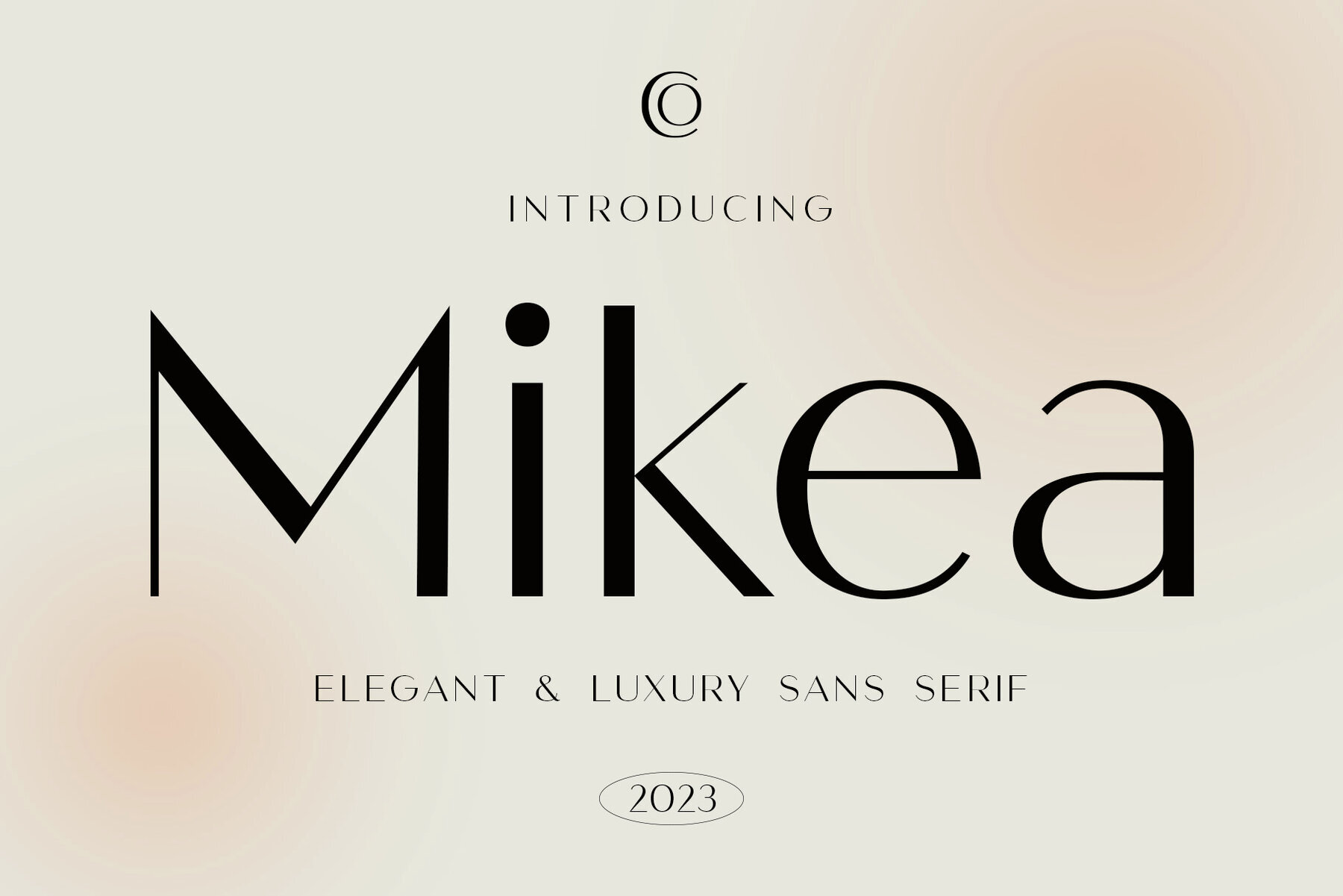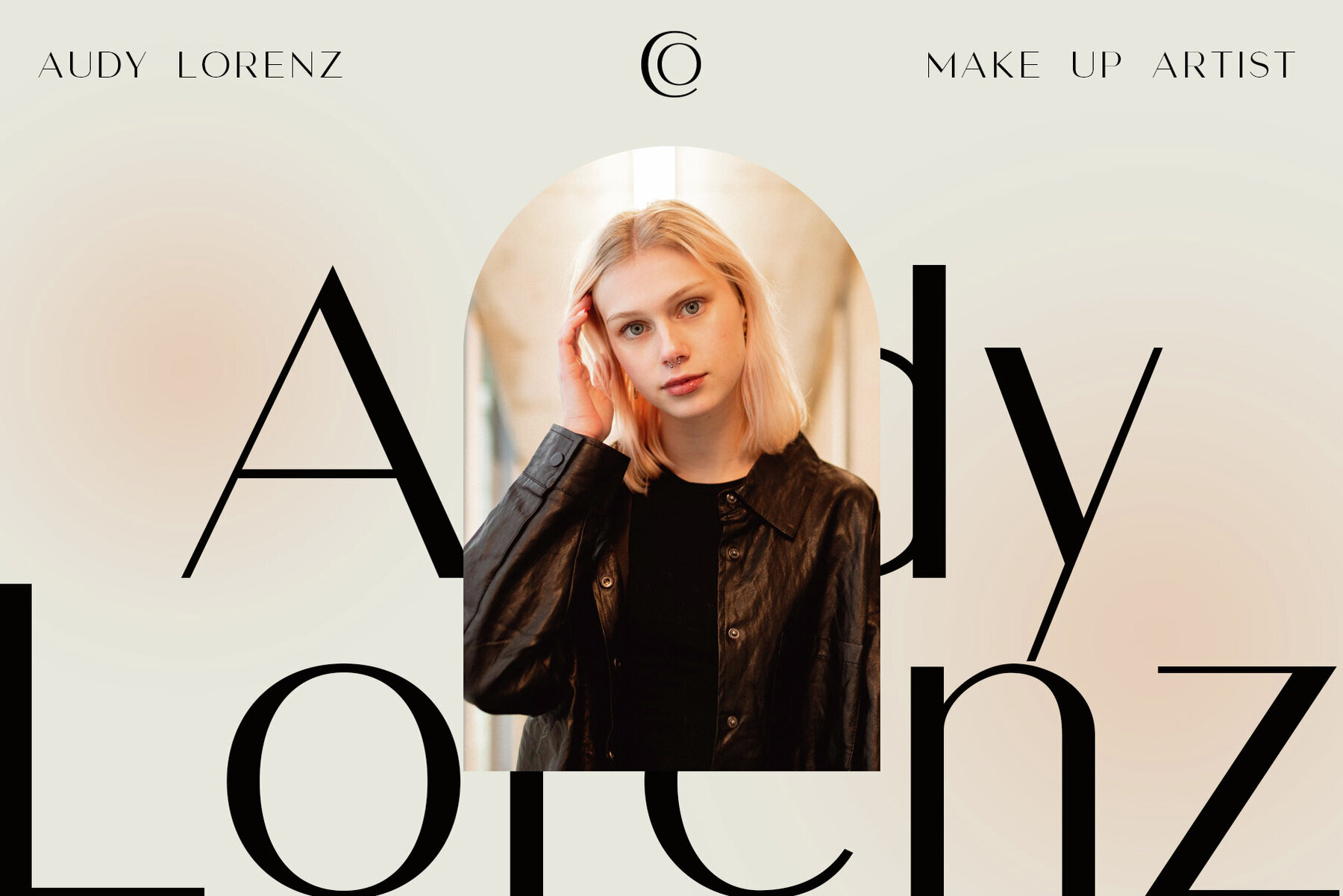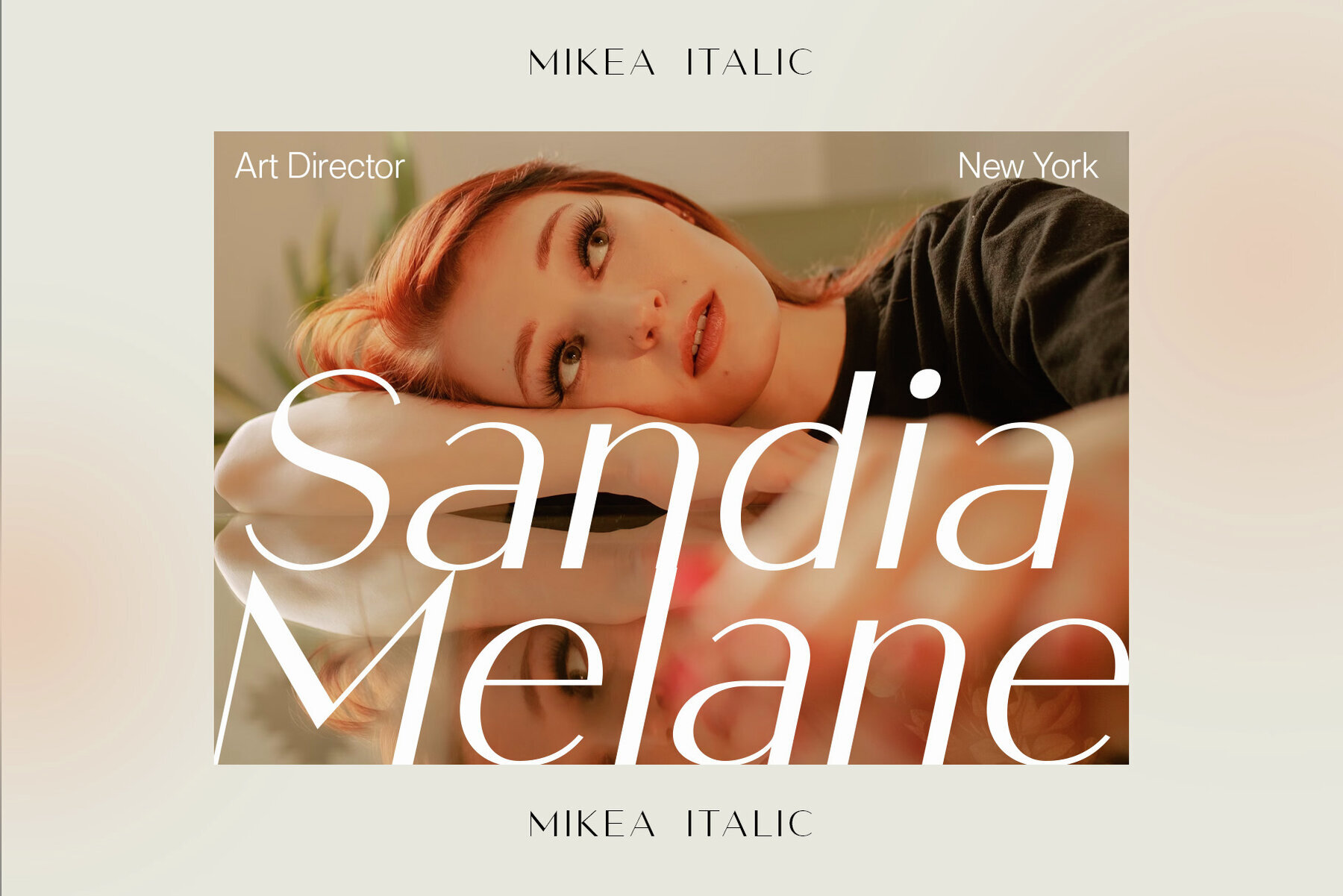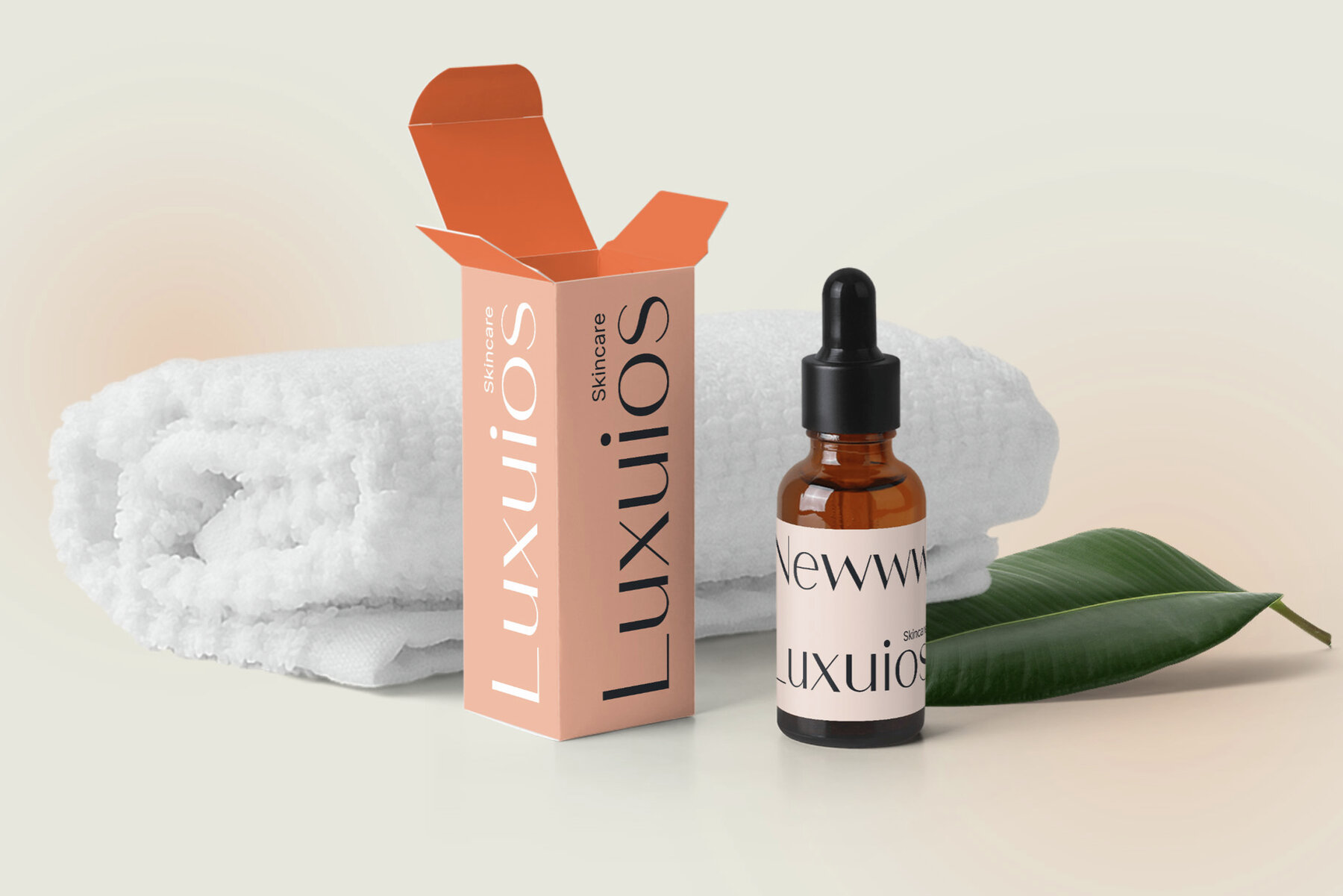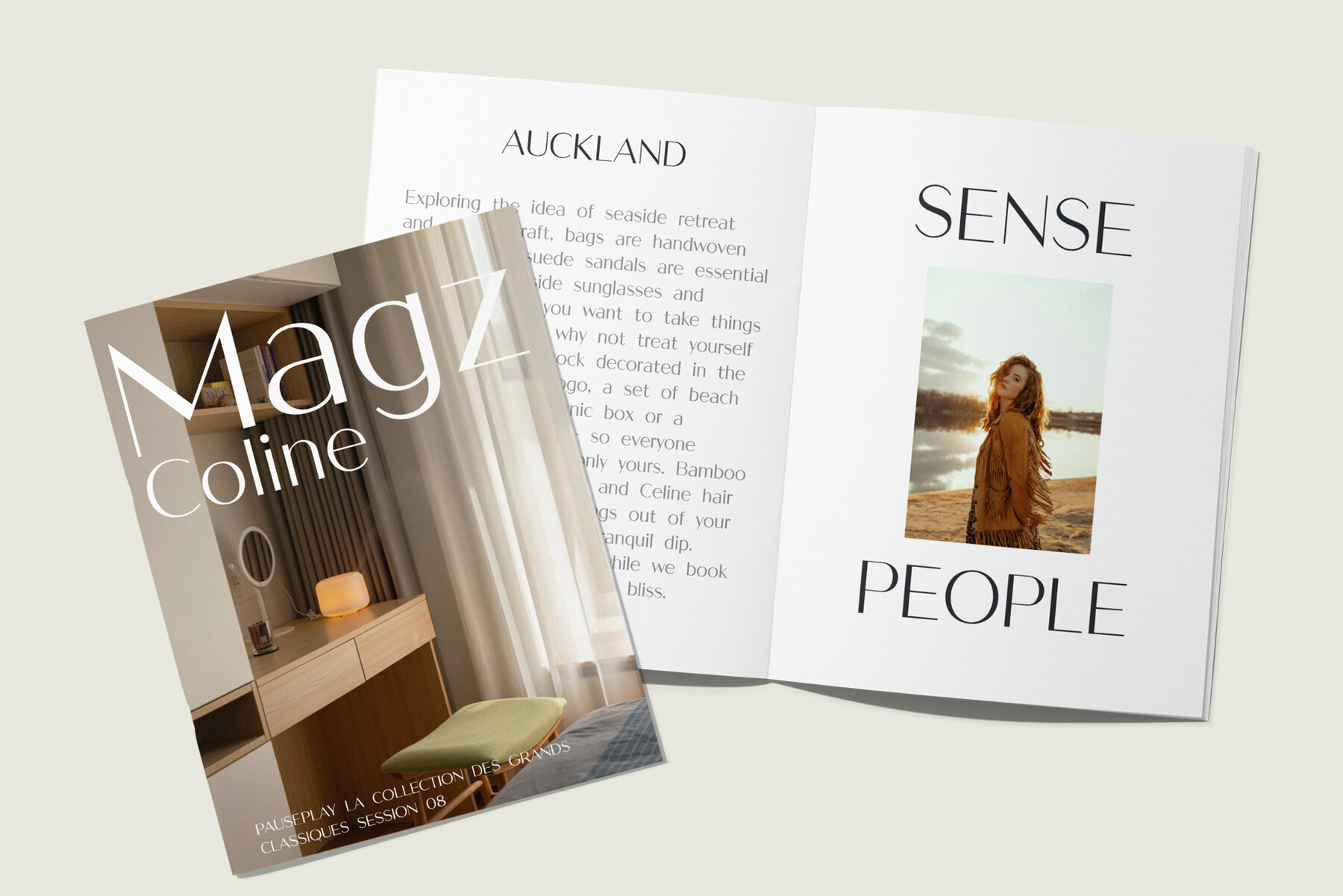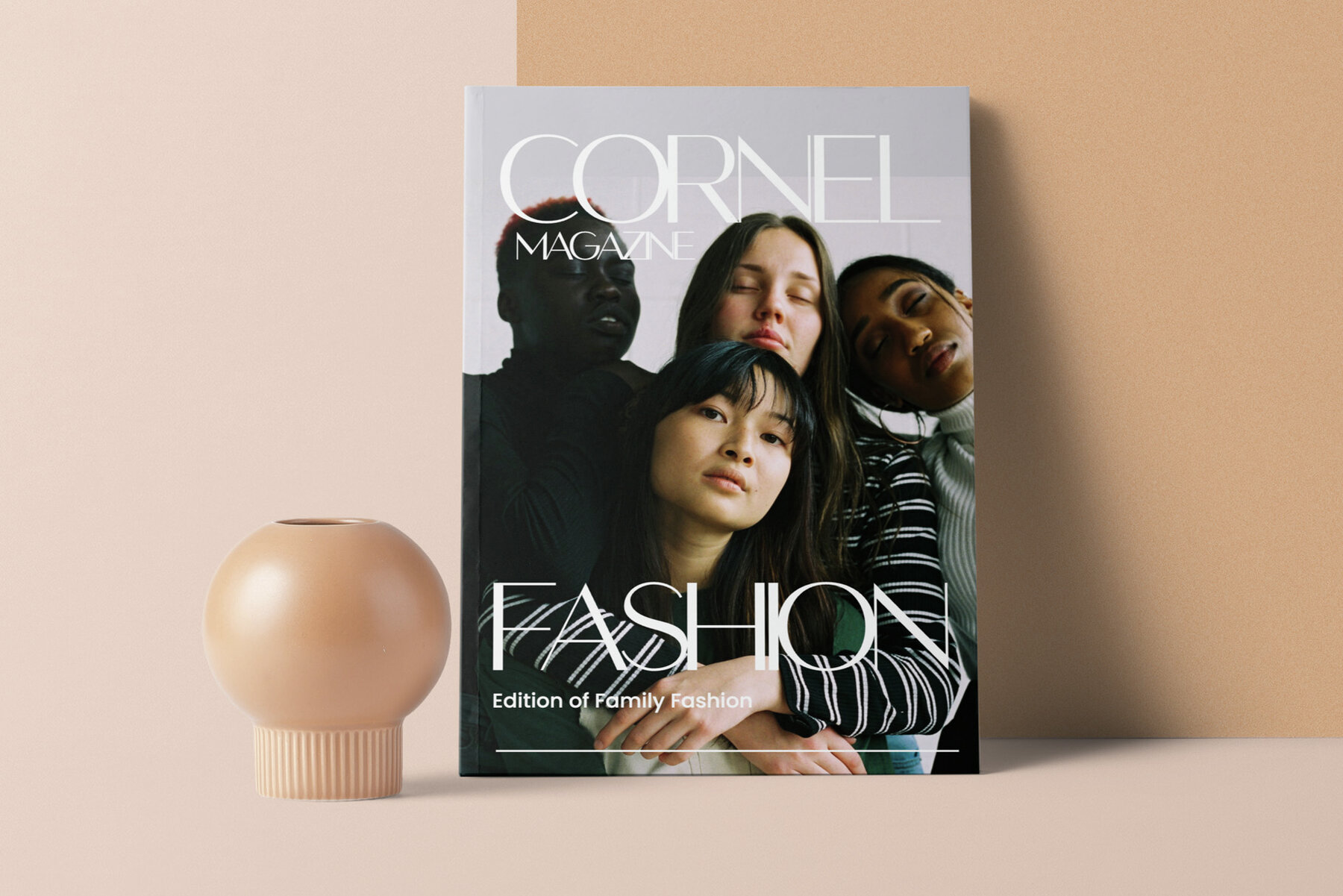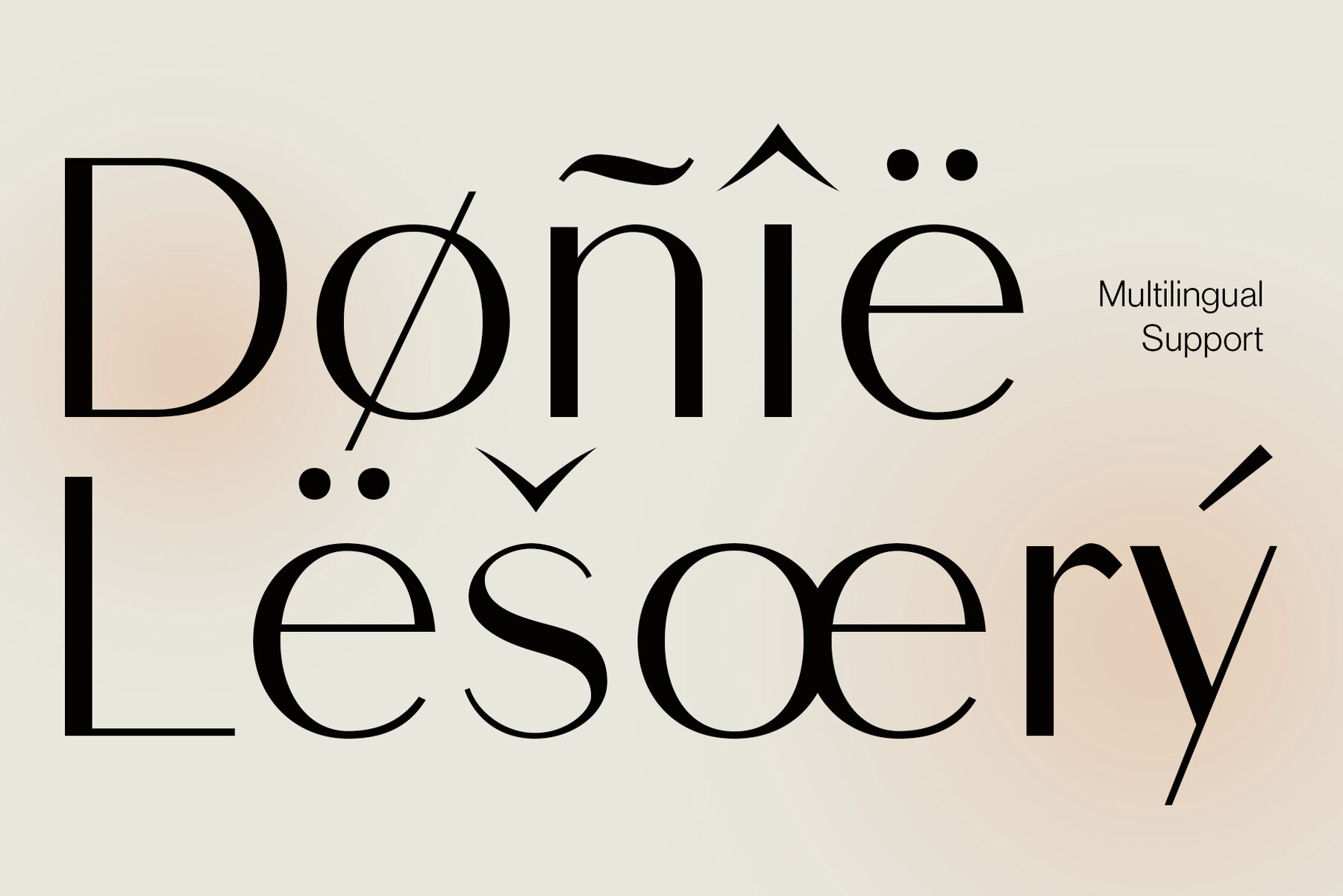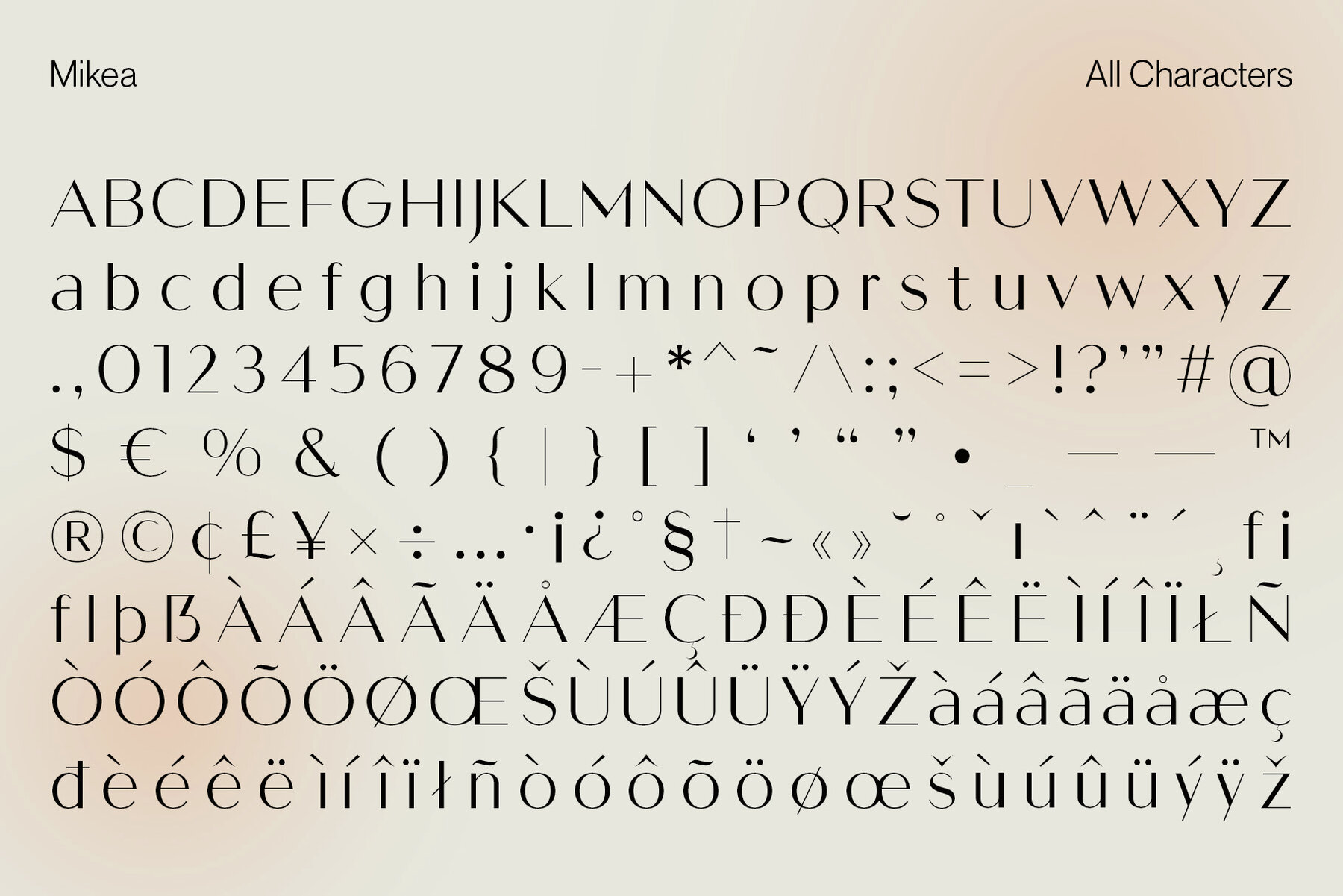
Mikea Font
Experience the epitome of sophistication with Mikea, a luxury font that adds opulence to your designs. Crafted with meticulous detail, Mikea elevates any project, serving as a beacon of elegance and class. This sans serif font exudes luxury in every letterform, making it the ideal choice for projects that demand opulence and refinement. Mikea brings a new level of luxury to sophisticated designs. Mikea encapsulates timeless elegance, ensuring your designs maintain prestige and grandeur that withstands the test of time. With Mikea, your work will always have a classic charm.Mikea: Elegant Luxury Font by Craft Supply Co.
Luxury Redefined
Timeless Elegance